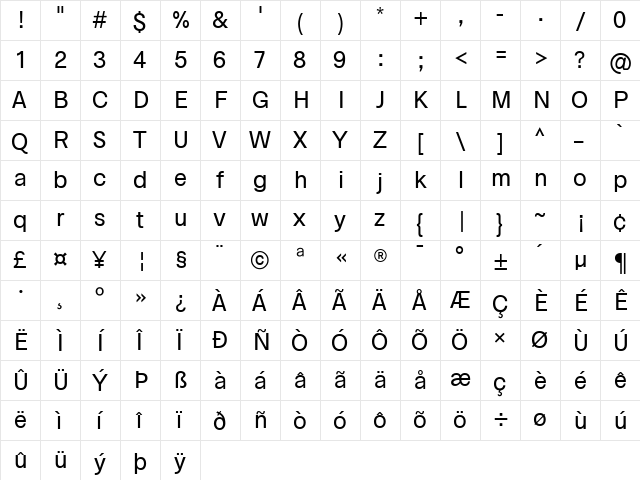
Arco Perpetuo Regular
| Designer | Alfredo Marco Pradil |
Design Context for Arco Perpetuo Typeface
Arco Perpetuo takes a measured approach to typography — its balanced proportions and neutral character make it a reliable workhorse for both digital and print work.